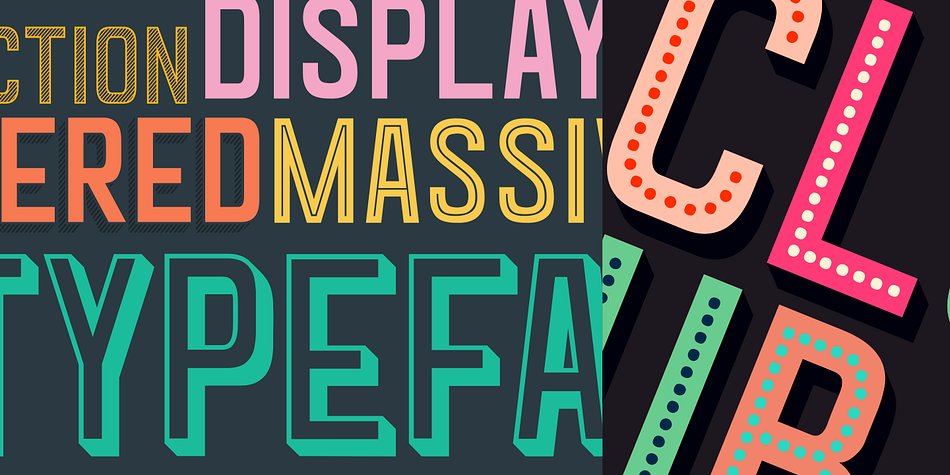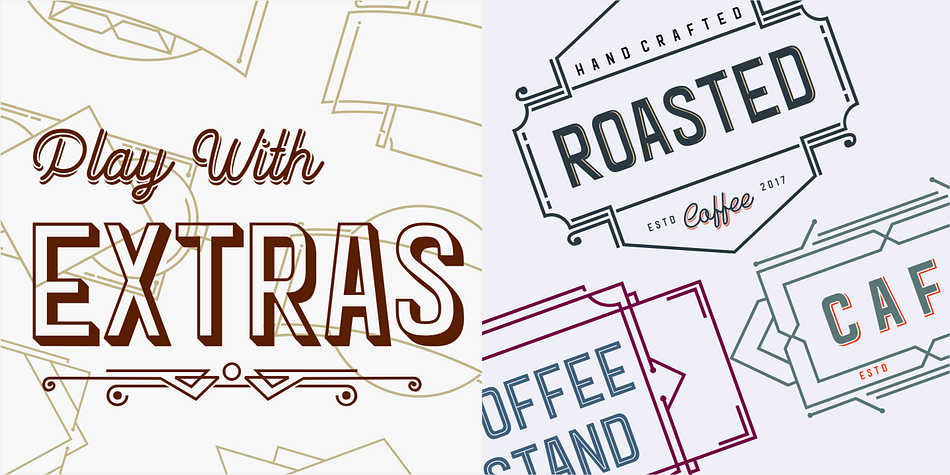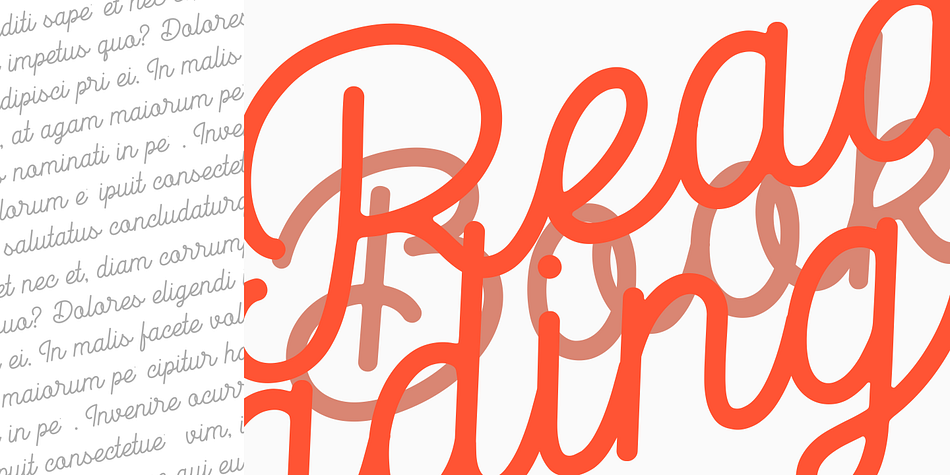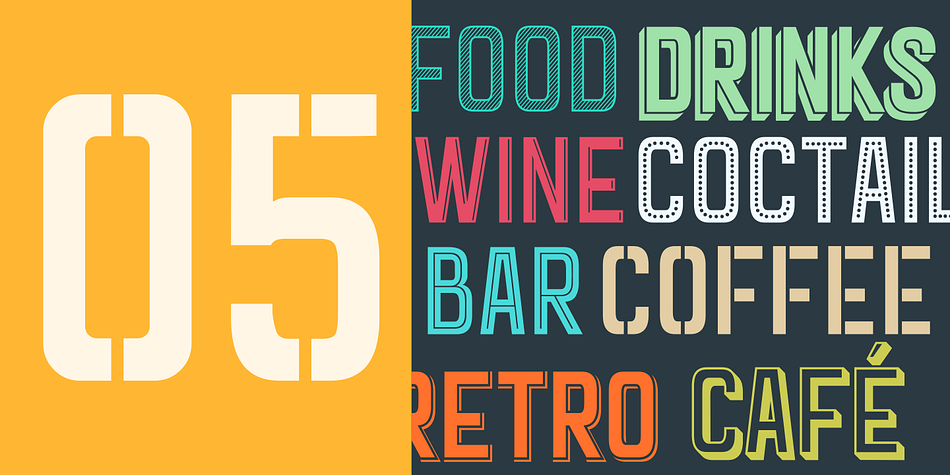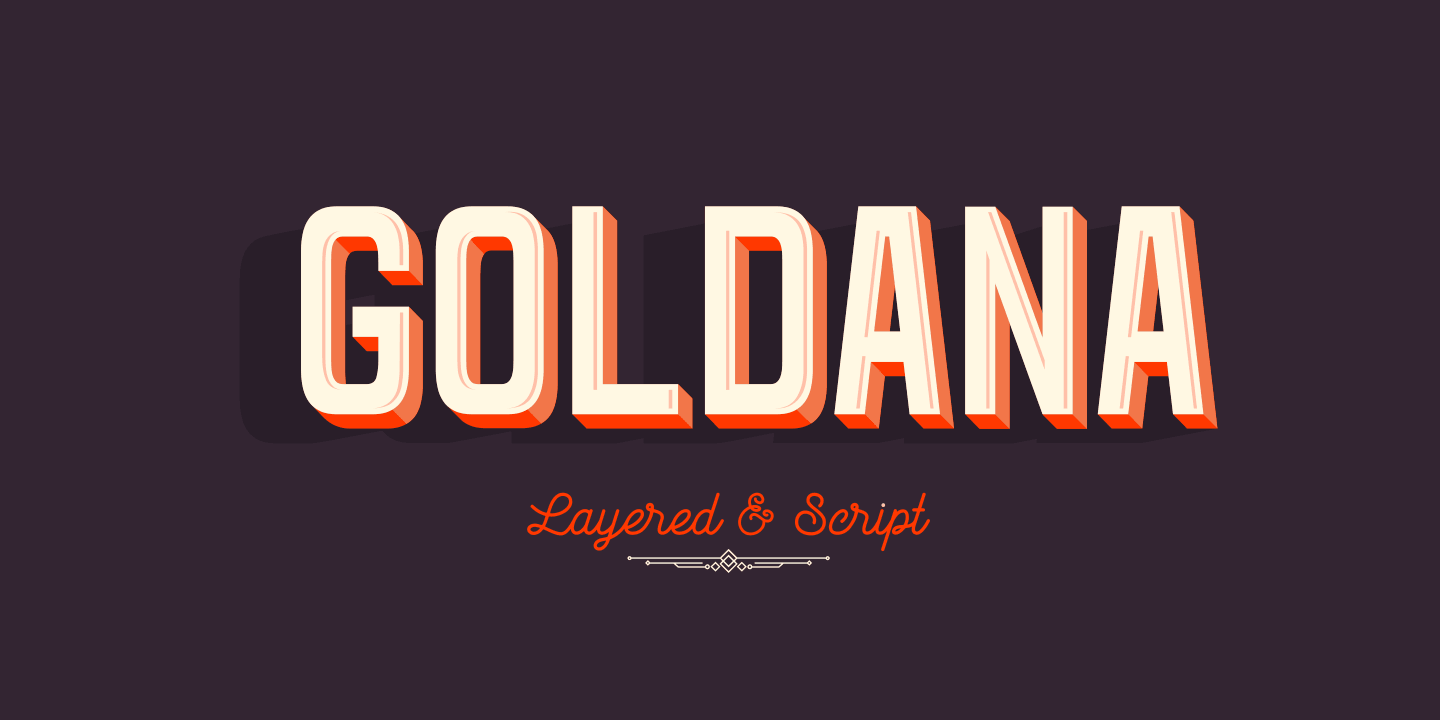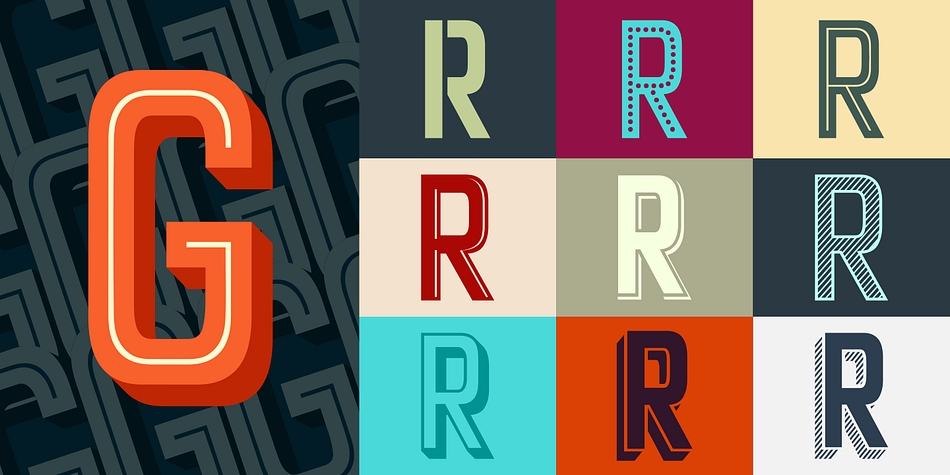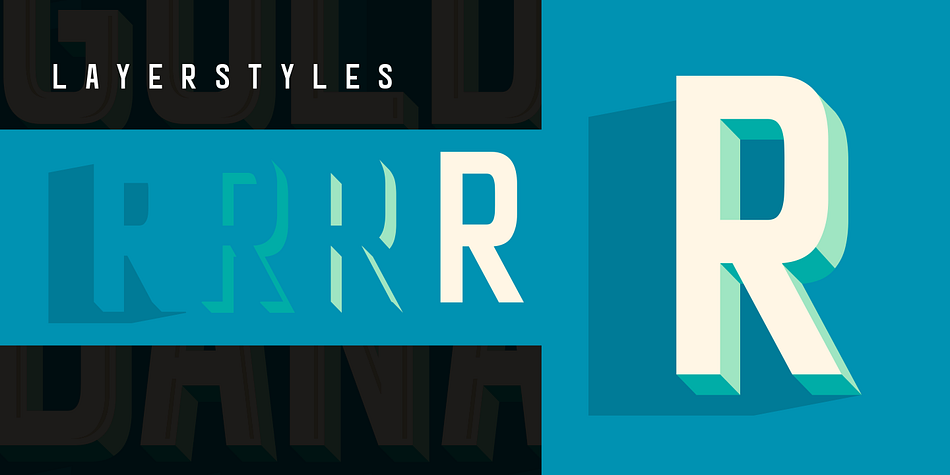
Designed by Cucu Supriyadi, Goldana is a multiple classification font family. This typeface has twenty-four styles and was published by Seventh Imperium.
Goldana is an Art Deco inspired display layered font.
The Base layer is regular, add a extrude and extrude shadow to create a dimensional look. Several of the styles can be mixed and matched together to create different styles and details. But, there are also several weights that can be a stand alone display sans or script.
The Script fonts are also equipped with opentype features. The Shadow, Drop Strip and Stencil styles are not meant to be layered.
Play with the collection of dingbats in the Extra weight to create badges and designs with a vintage feel or art deco style.